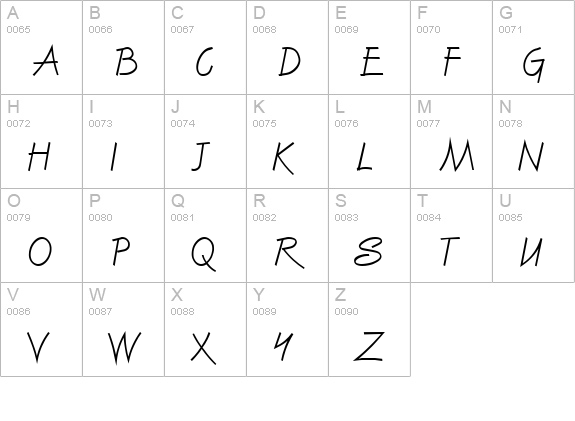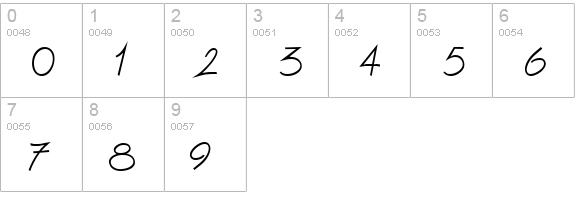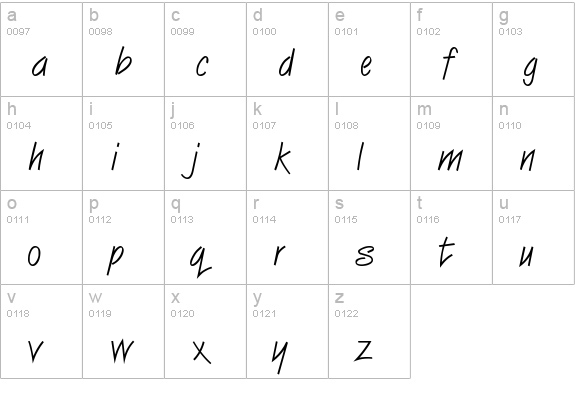
Vizier Normal is the standard, neutral variant in the Vizier typeface family \xE2\x80\x94 well suited to general body text, paragraphs, and standard typographic work.
Vizier Normal is a versatile and stylish font that effortlessly combines elegance with a touch of modernity. Its clean and balanced letterforms make it suitable for a wide range of design projects, from branding and logos to headlines and body text. With its timeless appeal, Vizier Normal is sure to add a touch of sophistication to any design. The carefully crafted details and perfectly balanced proportions give this font a sense of harmony and legibility, making it a versatile choice for both print and digital media. What sets Vizier Normal apart is not only its impeccable design, but also the fact that it is available for free. Yes, you heard it right – this stunning font can be downloaded for free at FontsMarket.com. So whether you're a designer on a budget or simply looking to add a touch of elegance to your project without breaking the bank, Vizier Normal is the perfect choice. Imagine the possibilities with Vizier Normal – from creating eye-catching headlines to designing stunning logos, this font will elevate your design to a whole new level. Its timeless appeal and versatility make it a must-have for any designer's toolkit. So why wait? Head over to FontsMarket.com and download Vizier Normal for free today. Unleash your creativity and let this exquisite font be the perfect companion for your next design project.